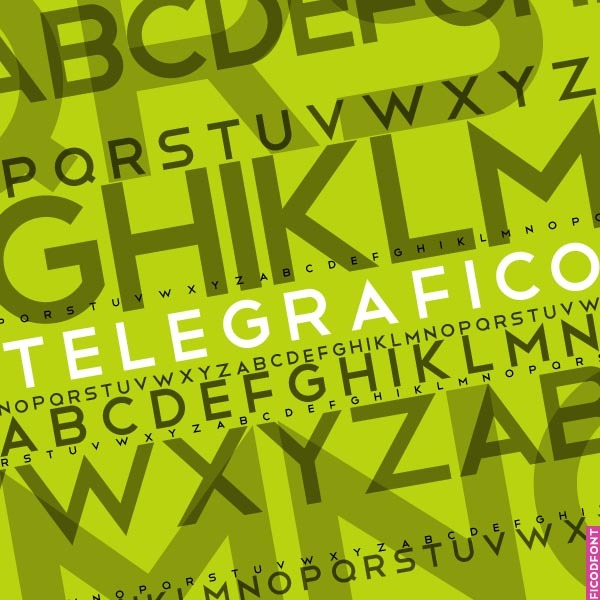
Telegrafico, designed by Salvo Nicolosi, is a free geometric sans serif with clean uppercase forms and an industrial edge. Broad letters are built from firm verticals, level bars, and near-circular curves. The strokes stay even and unadorned.
It is strongest in signage, where its open construction and blunt geometry read as direct and purposeful. The same engineered shapes suit transport posters, technology branding, and event graphics, especially when lines, grids, or map-like illustrations echo the lettering's simple structure.
Telegrafico
Capital letters only.
Salvo Nicolosi
Carattere ispirato al razionalismo italiano. Disegnato sul modello di caratteri visti talmente dappertutto da non ricordare esattamente dove; soprattutto nella scritta "Poste e telegrafi", da cui il nome. Un carattere molto simile (direi che è una versione "extended") è presente sotto forma di bellissimi caratteri "solidi" sullla facciata del palazzo delle poste di Napoli.